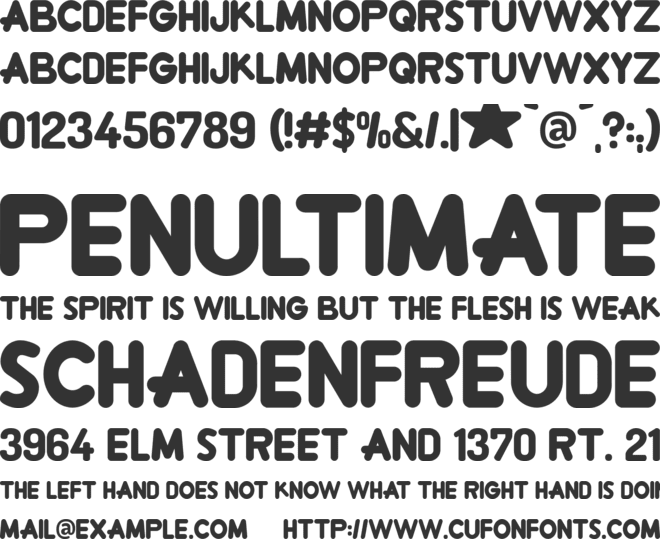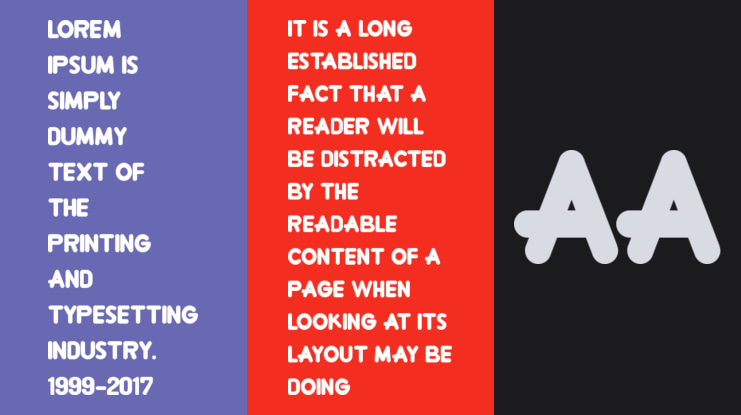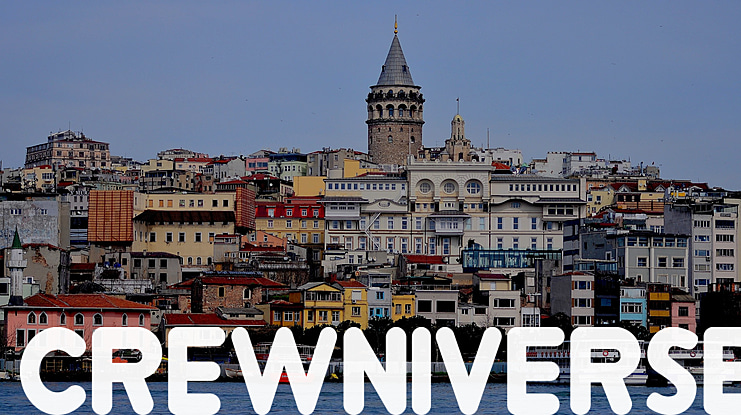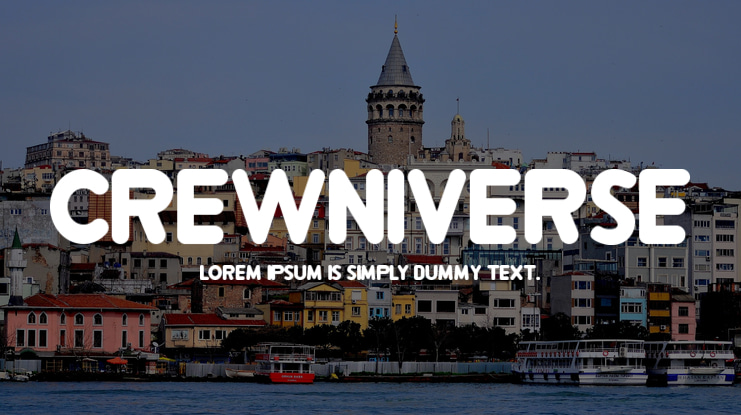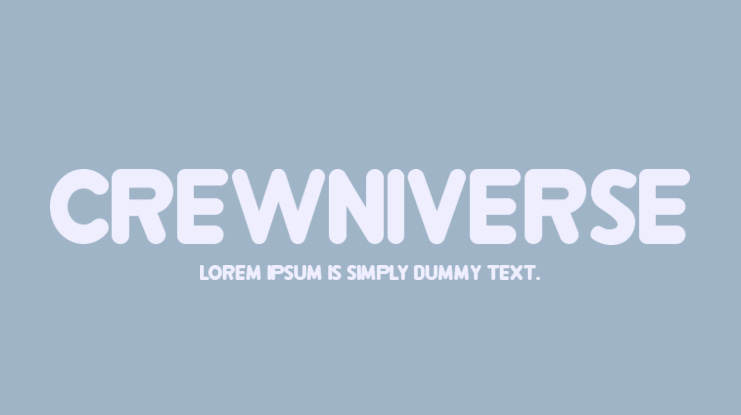
Crewniverse Font
Crewniverse is a font that replicates the one used for the title cards of the TV show Steven Universe™, as well as the logo of the Steven Crewniverse's Tumblr.
2015-2016 - Font by Lloyd Garmadon Studios-
Crewniverse Font V.5
Crewniverse is a font that replicates the one used for the title cards of the TV show Steven Universe(tm), as well as the logo of the Steven Crewniverse's Tumblr.
2015-2016 - Font by MaxiGamer - maxigamer.deviantart.com Made in FontForge.